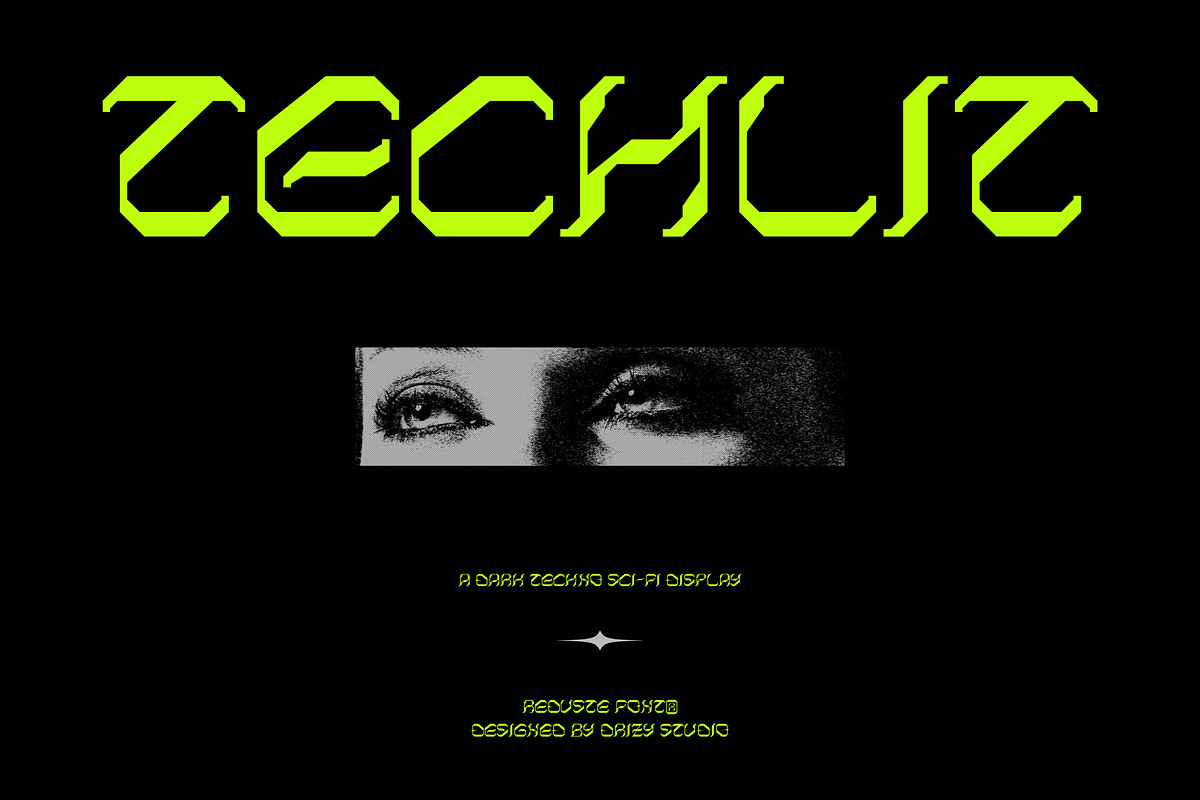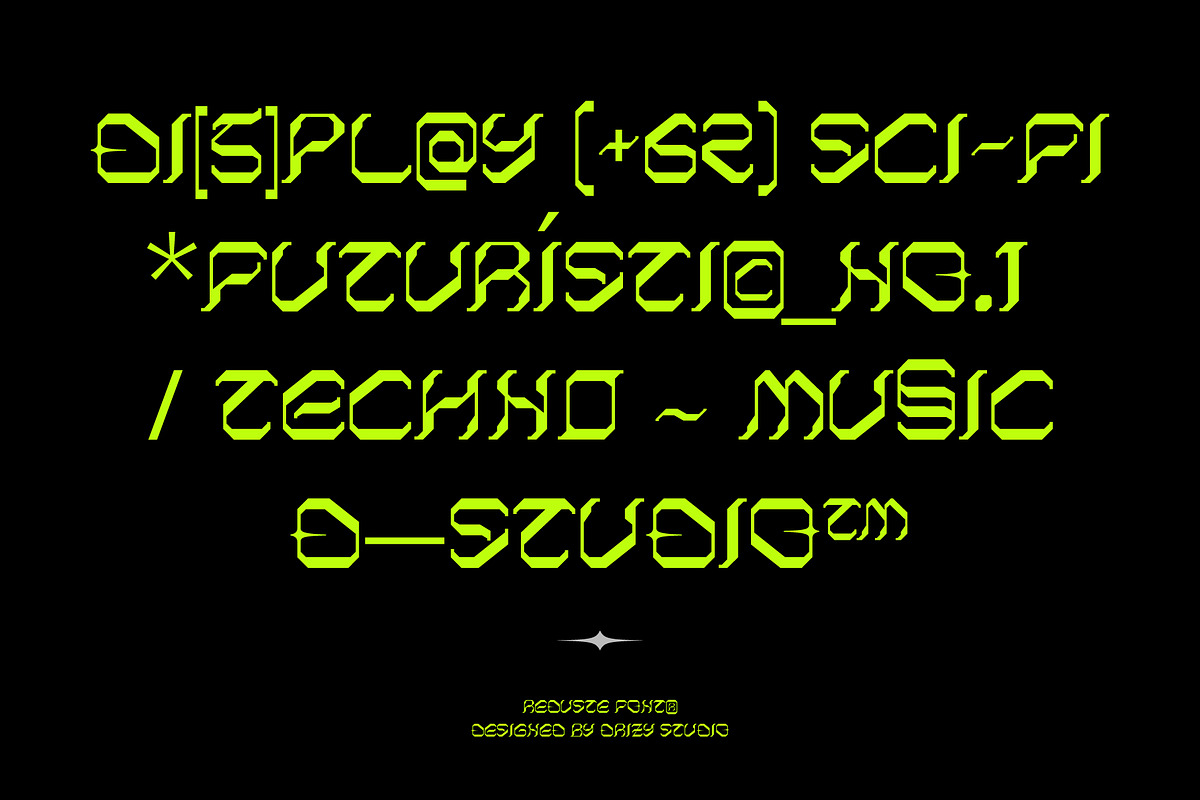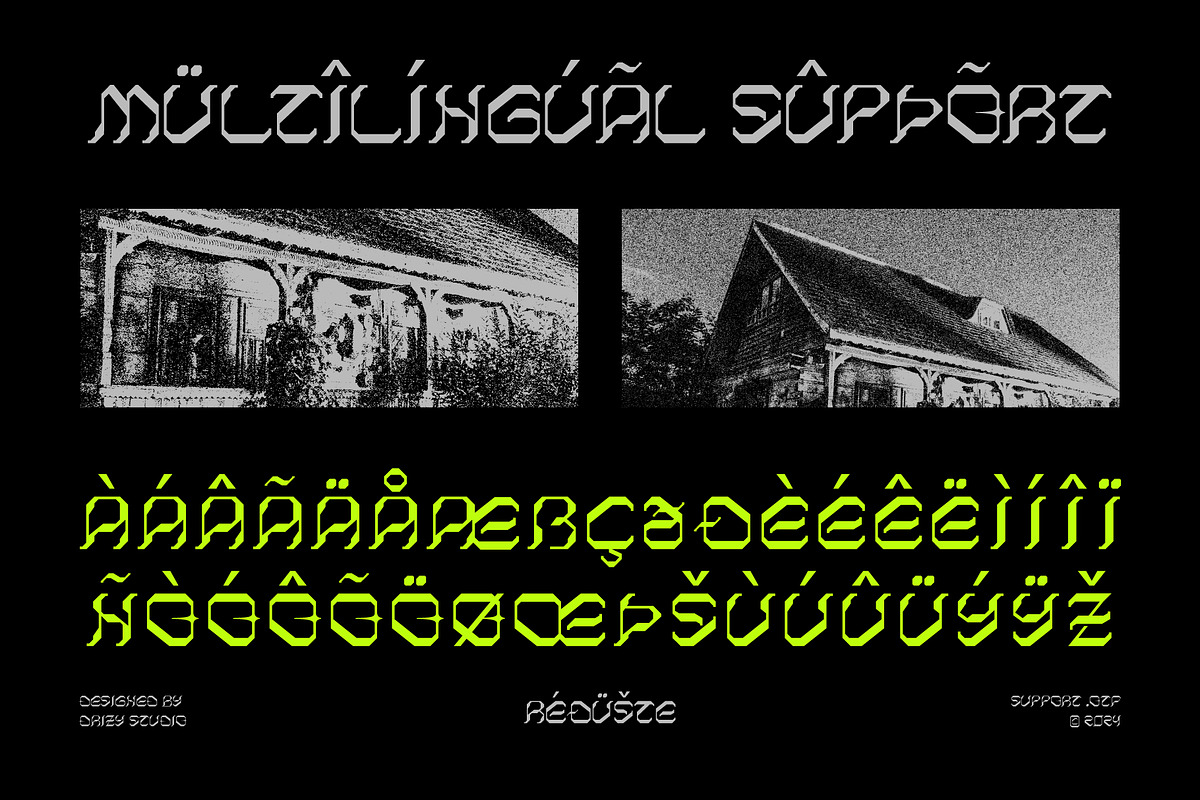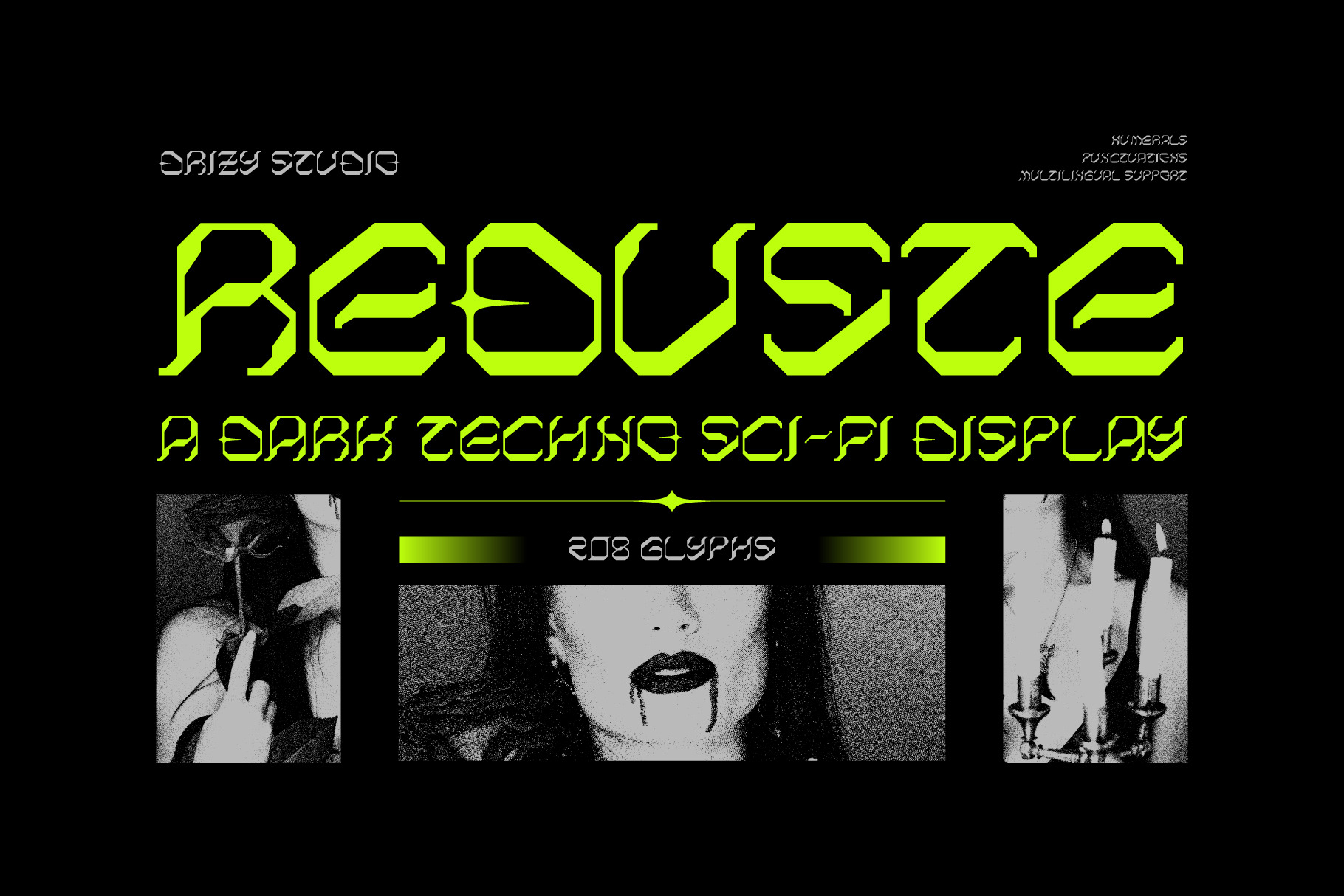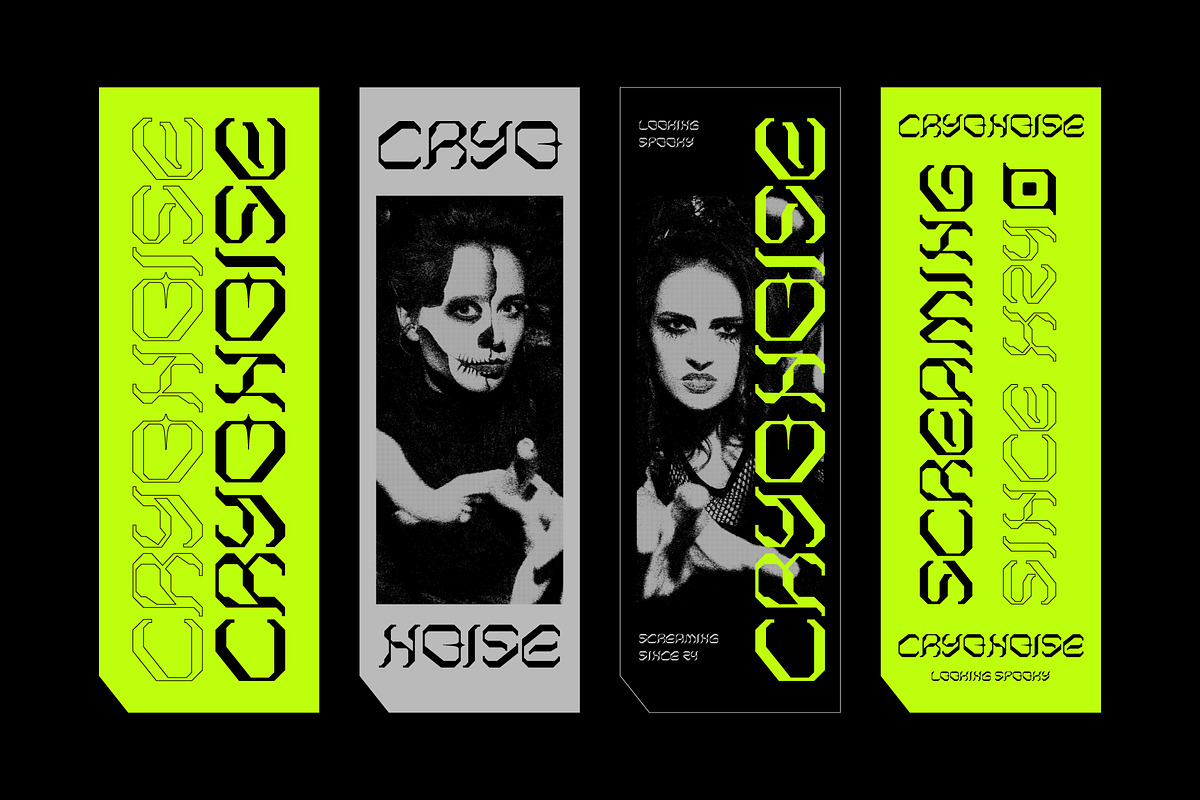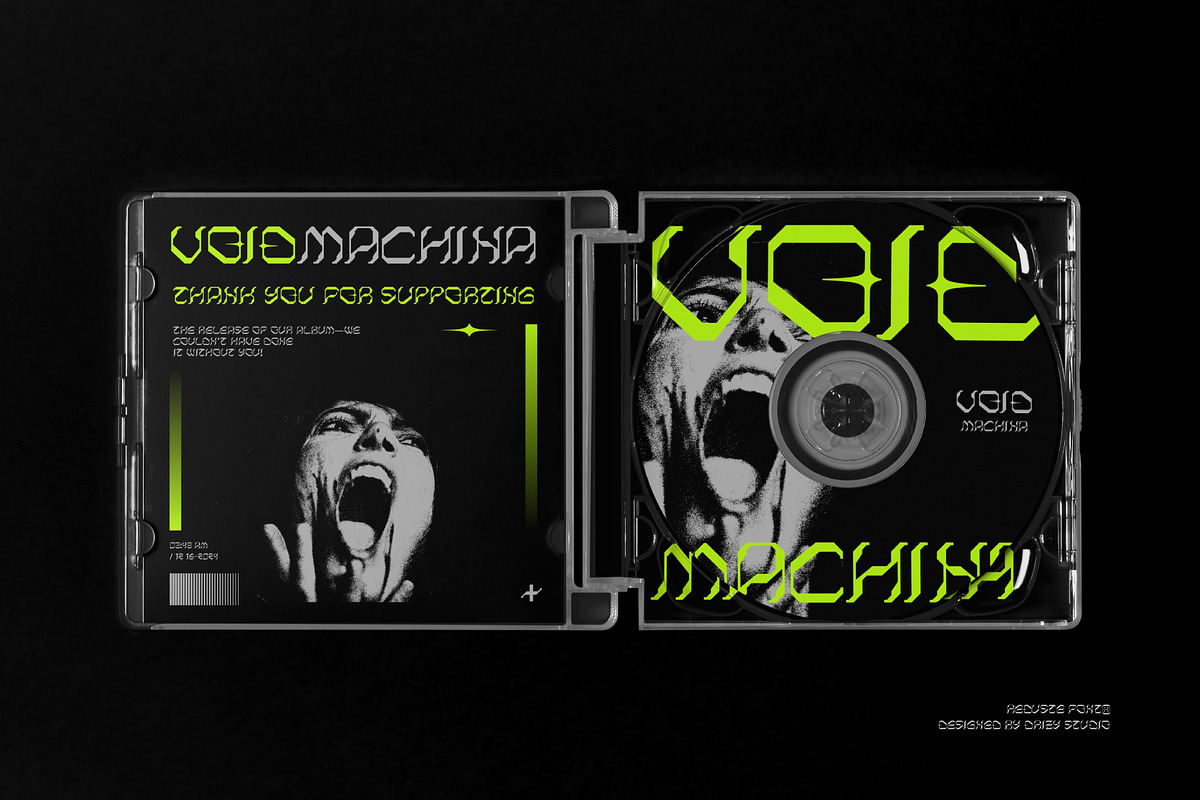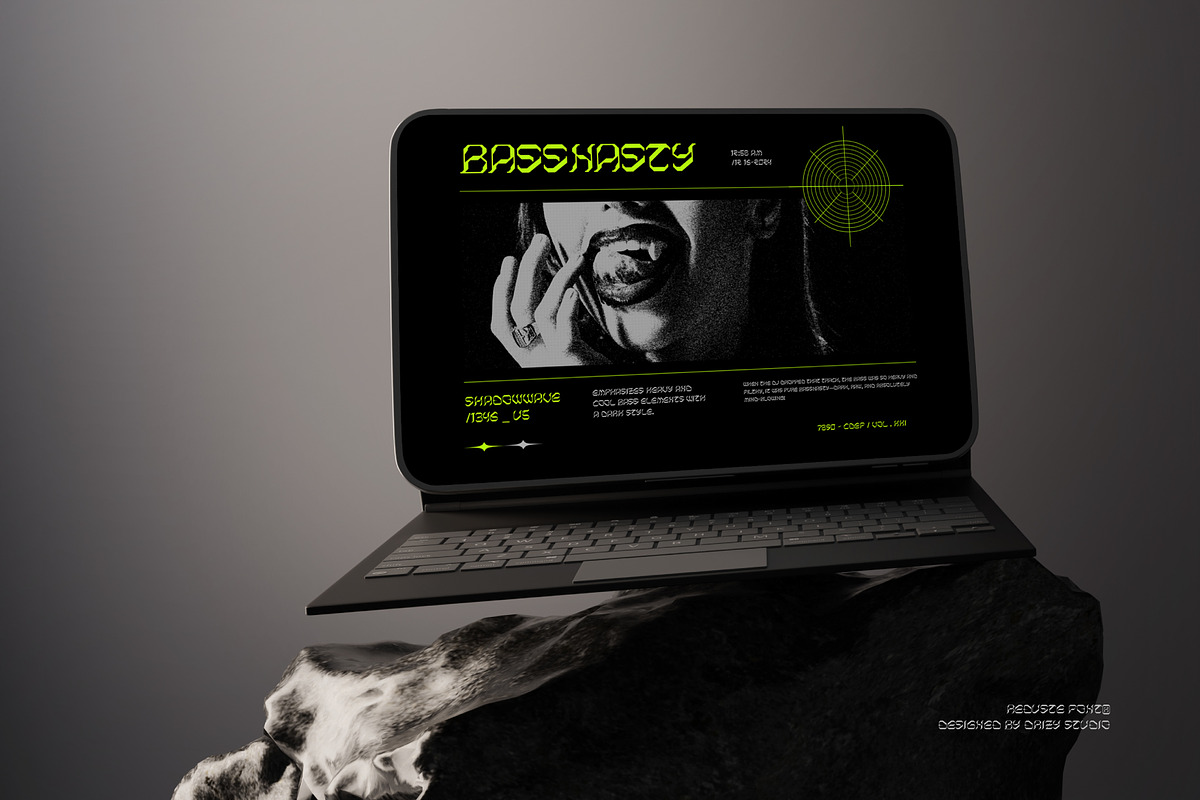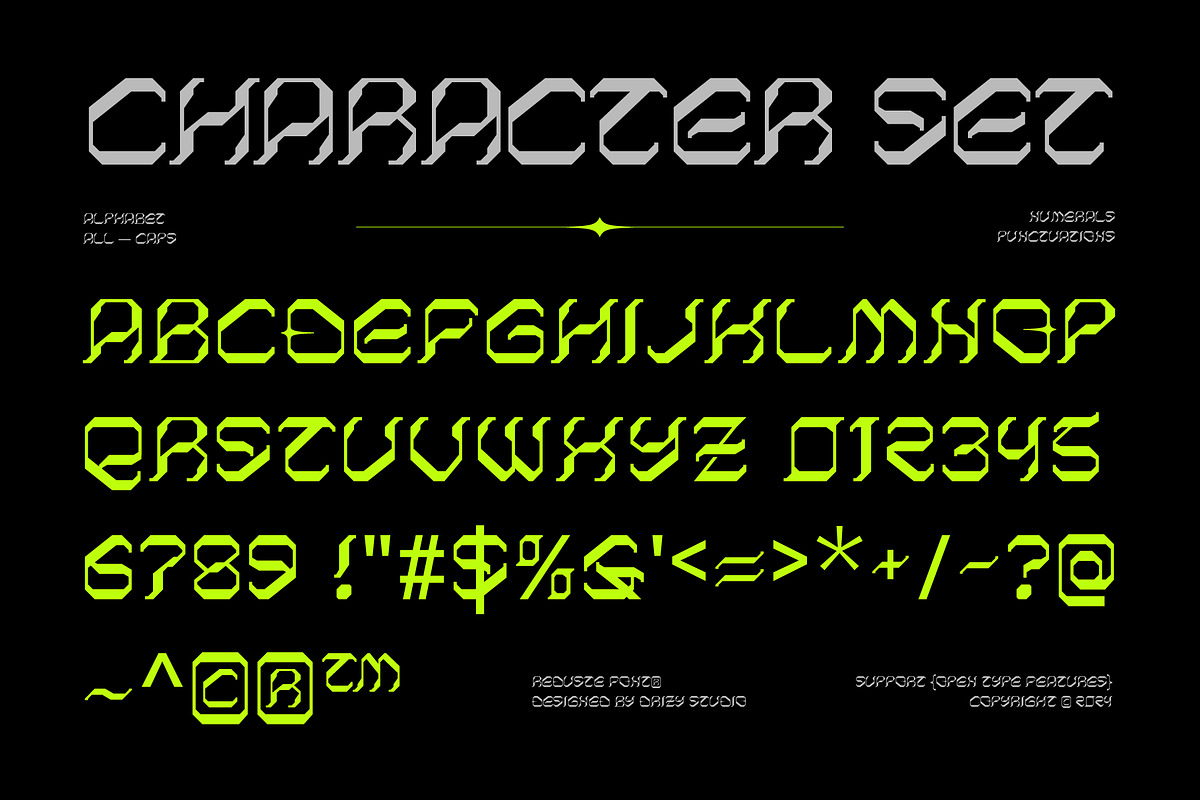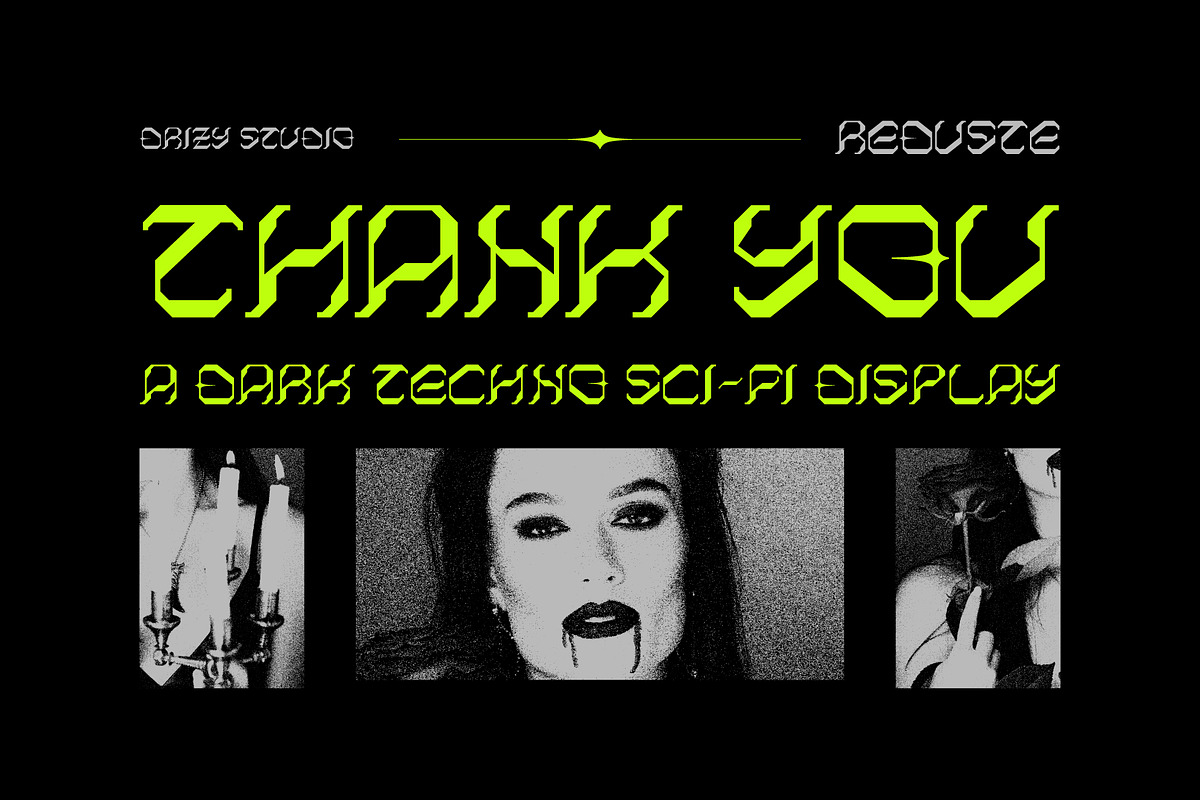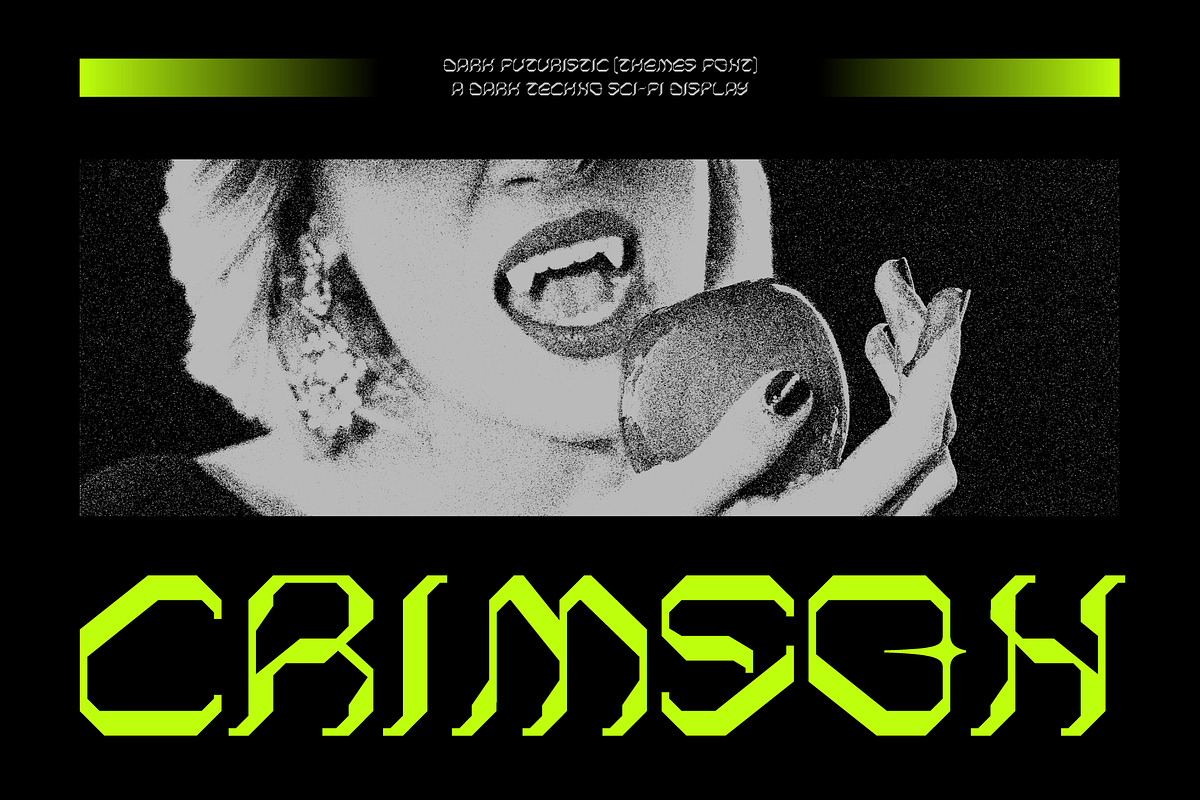
Reduste – Dark Techno Sci-Fi Font
Reduste is a bold and electrifying font that fuses Dark Futuristic techno vibes with sci-fi aesthetics. Designed for the cutting-edge music industry, Reduste brings a sleek, futuristic edge to your projects. It’s sharp angles, dynamic curves, and bold presence make it perfect for album covers, event posters, and digital visuals that demand attention. Whether you’re crafting a cyberpunk-themed flyer or a high-energy techno playlist cover, Reduste sets the tone for innovation and intensity. Dive into the dark futuristic world and let Reduste amplify your creative voice.
Reduste features:
- Character Set (All Caps)
- Punctuation & Numbers
Elevate and explore the design possibilities with this Dark Futuristic Font!